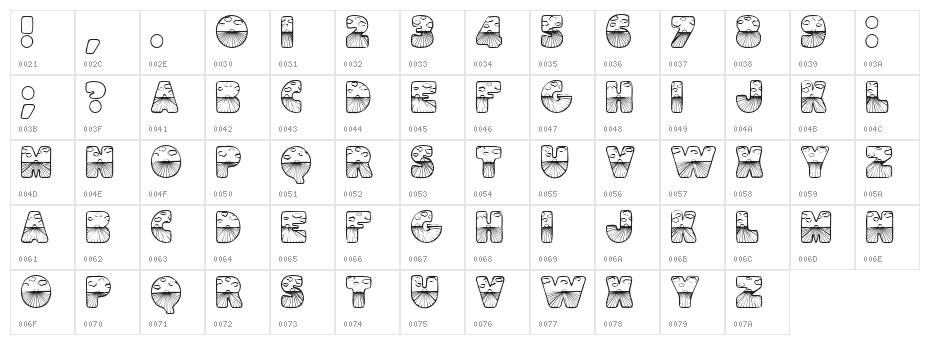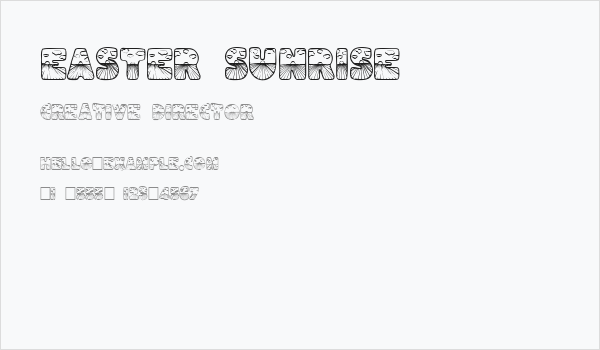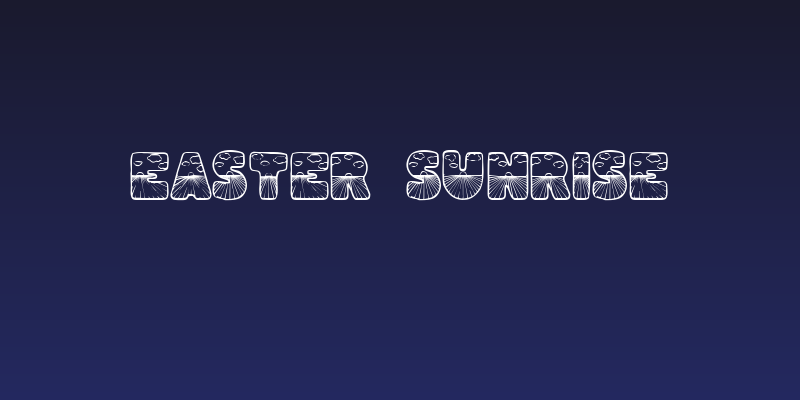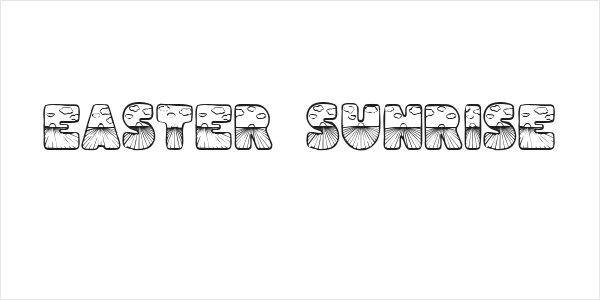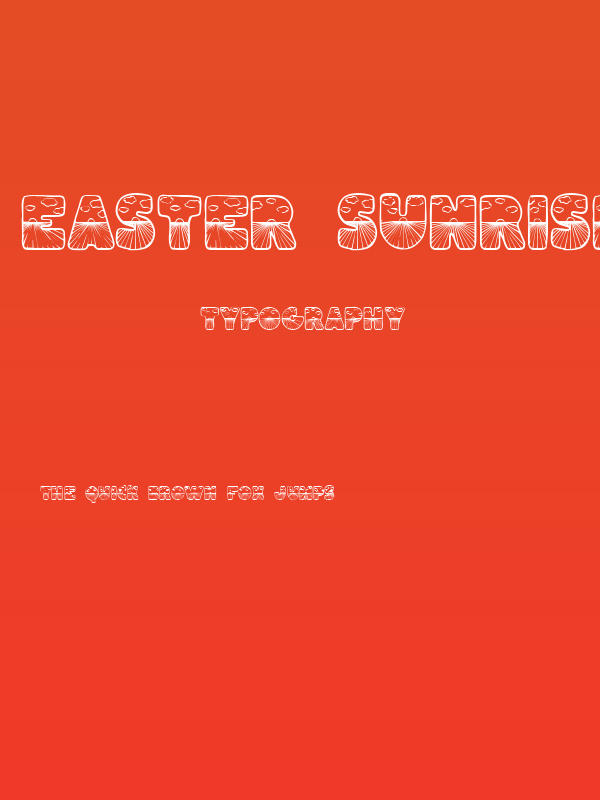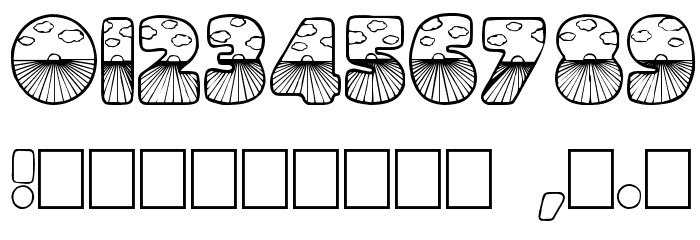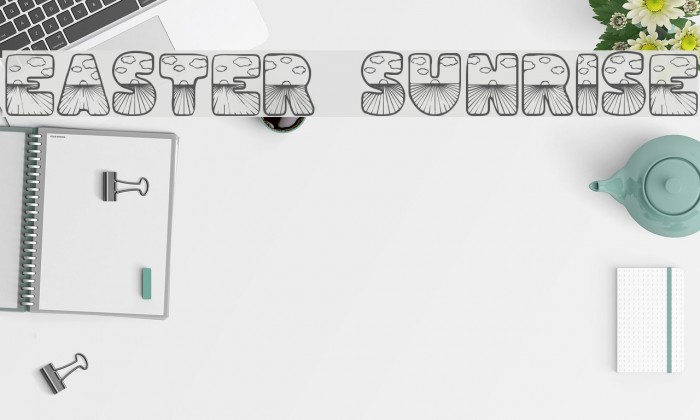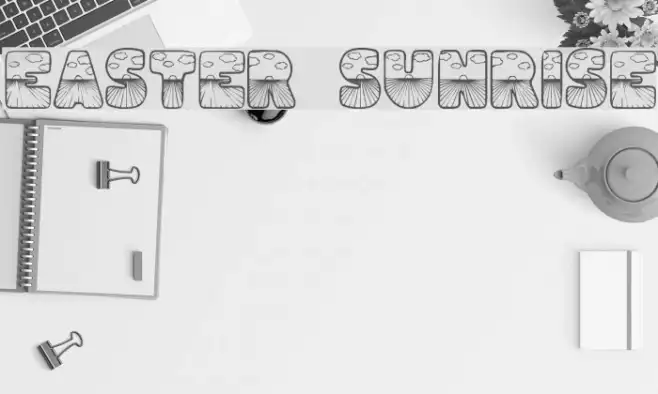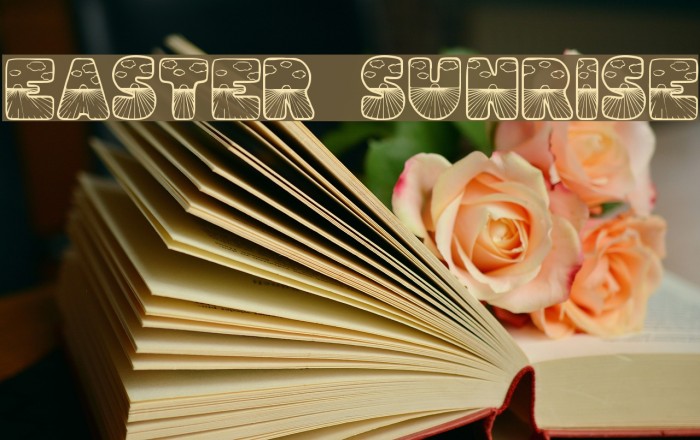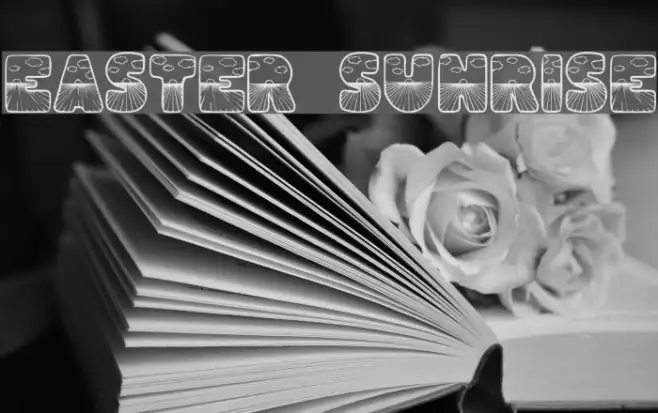
Easter Sunrise Font
Easter Sunrise Description
This playful and decorative font features a whimsical mushroom theme, with each character adorned with mushroom caps and stems. The letters are bold and cartoonish, with a hand-drawn quality that adds to their charm. The uppercase and lowercase letters maintain a consistent style, while the numbers and special characters follow the same thematic design. The font's unique style makes it stand out, perfect for projects that require a fun and imaginative touch.
| Proposed Projects | Ideal for children's books, fantasy-themed posters, playful branding, and creative event invitations. |